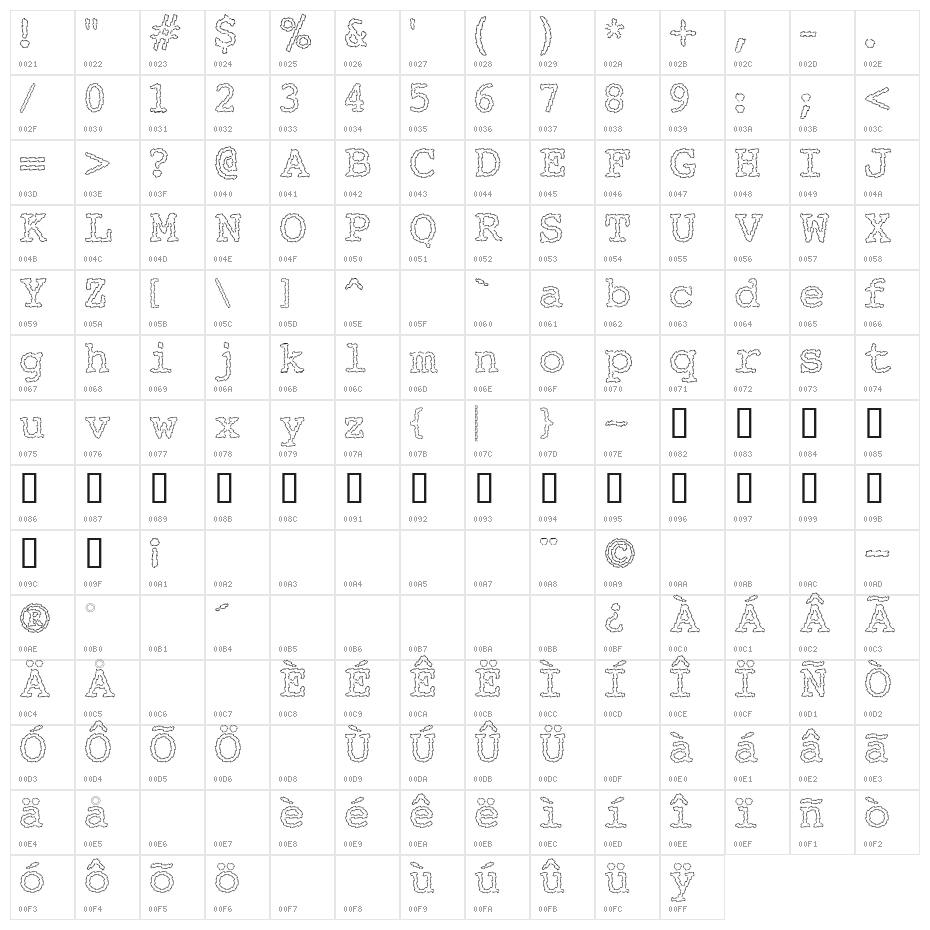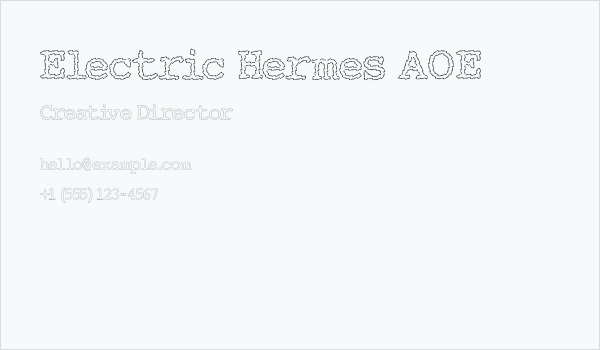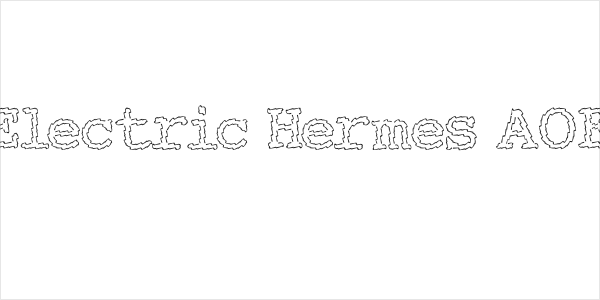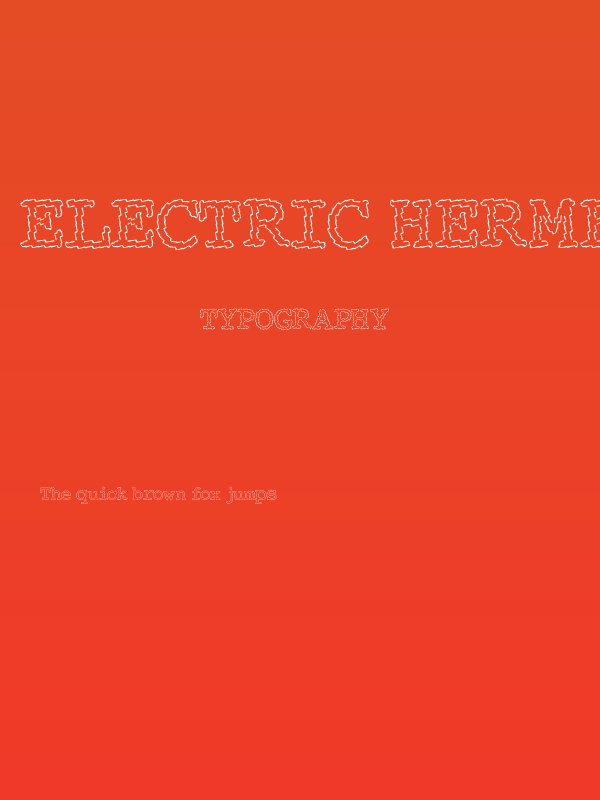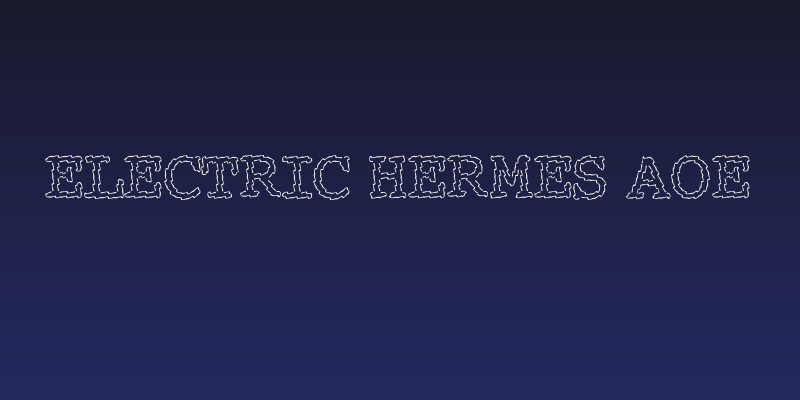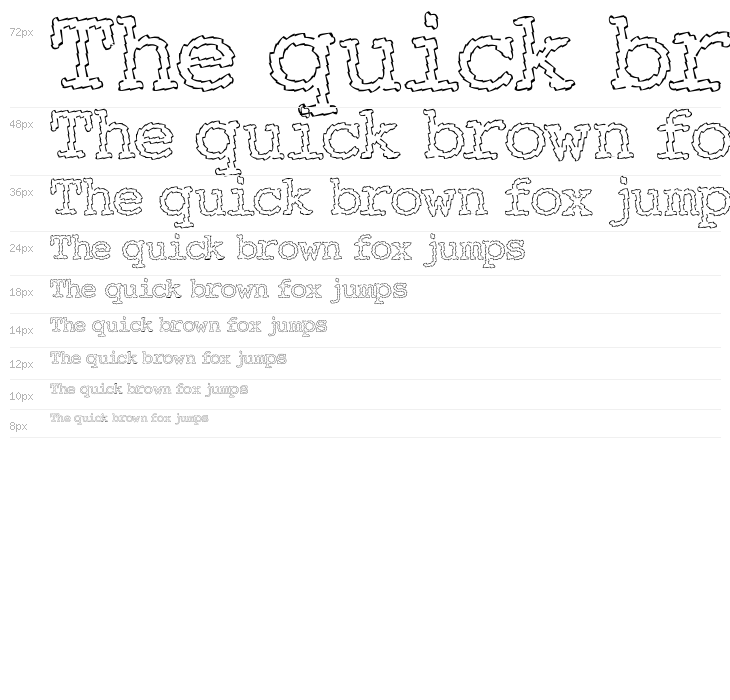
Electric Hermes AOE Font
Electric Hermes AOE Description
This font features a playful and dynamic design with a jagged, electric outline that gives each character a lively and energetic appearance. The uppercase and lowercase letters maintain a consistent style, with the uppercase being slightly more pronounced. Numbers and special characters follow the same energetic theme, making the font cohesive across all characters. The irregular edges add a sense of movement and excitement, making it ideal for projects that require a bold and eye-catching typeface. The font's unique style is perfect for creative and informal designs, where a touch of whimsy is desired.
| Proposed Projects | Ideal for children's book covers, party invitations, comic strips, and playful branding. |